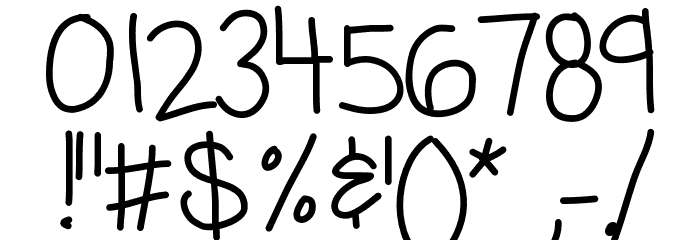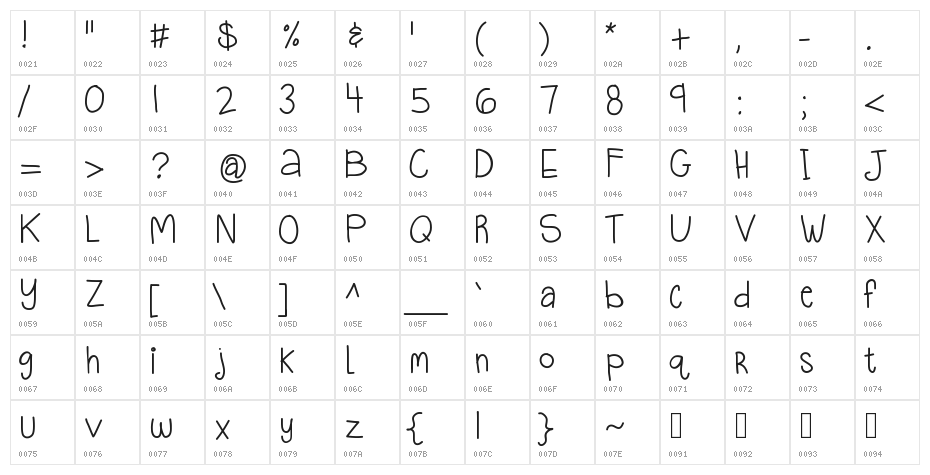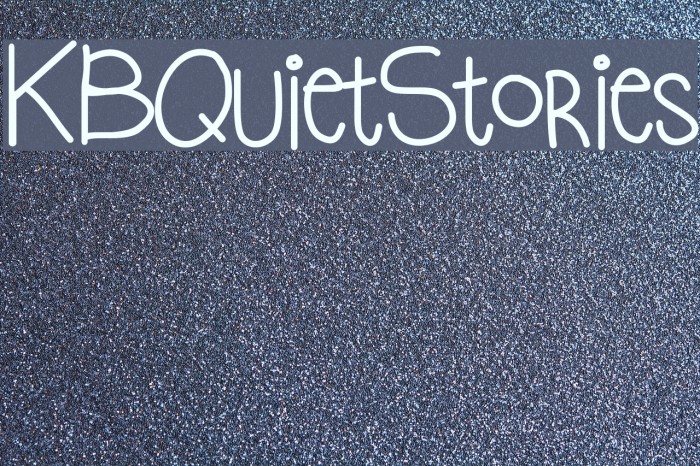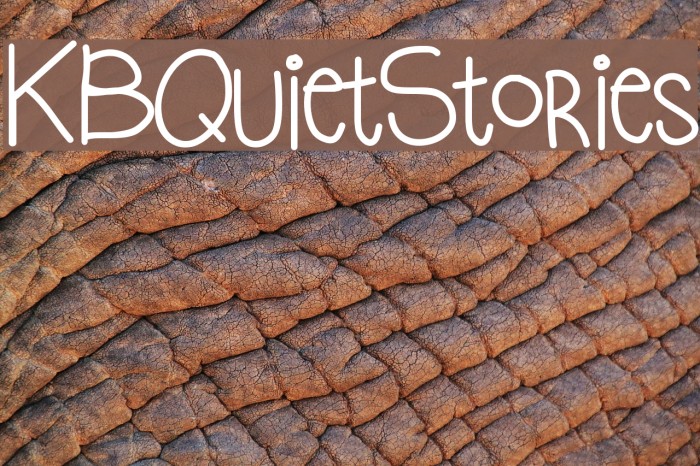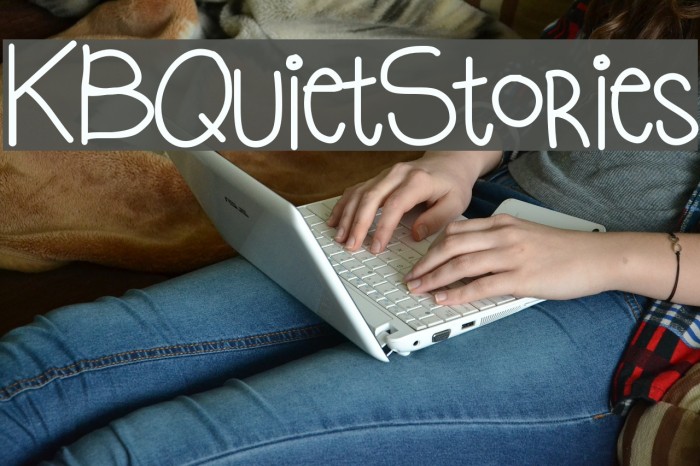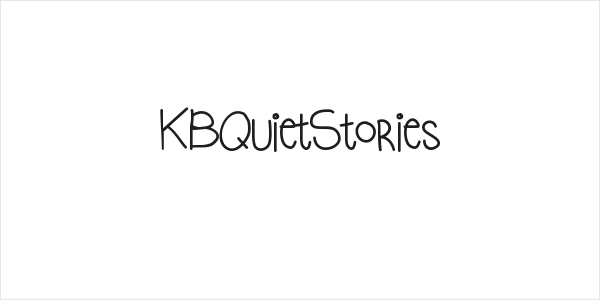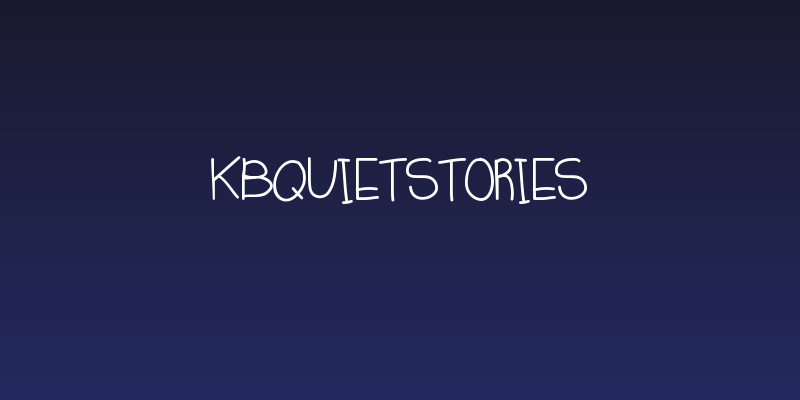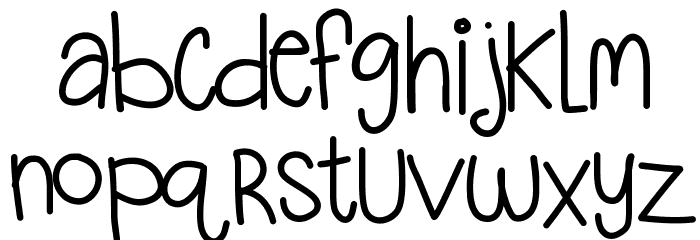
KBQuietStories Font
KBQuietStories Description
This playful and whimsical font features a handwritten style with a casual and friendly appearance. The letters are slightly irregular, adding a personal touch to the text. The strokes are consistent in width, giving it a uniform look while maintaining a lively character. The rounded edges and smooth curves enhance its approachable and informal feel. This font is versatile, suitable for projects that require a touch of personality and warmth, such as children's books, greeting cards, or creative branding materials. Its legibility and charm make it an excellent choice for conveying messages in a fun and engaging way.
| Proposed Projects | Children's books, greeting cards, creative branding, informal invitations. |